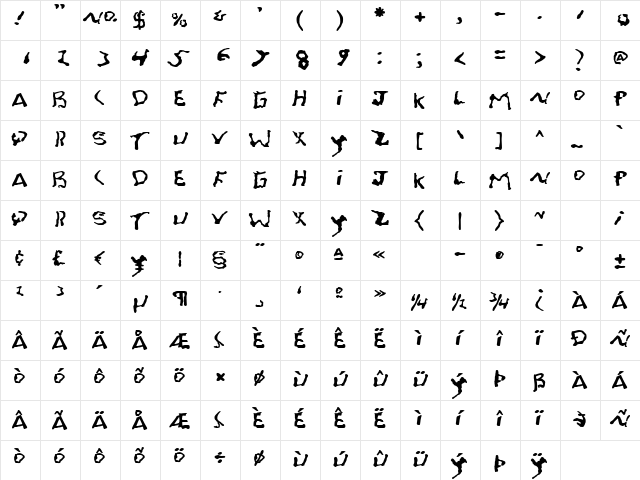
FontOnAGrain Regular
Design Context for FontOnAGrain Typeface
FontOnAGrain is a composed and adaptable typeface that performs quietly and consistently across a wide range of design contexts.